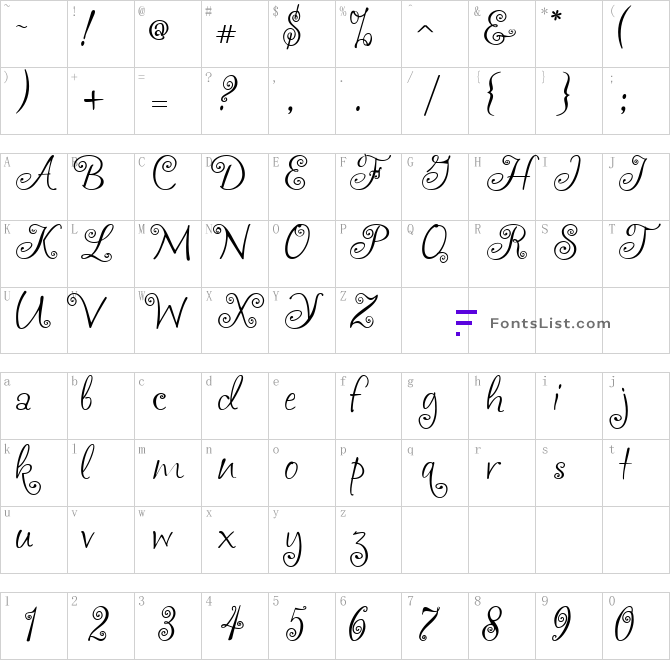
- Font Name:akaFrivolity
akaFrivolity.ttf is a very beautiful artistic font, akaFrivolity.ttf is widely used in the design and printing of various books and pictures,akaFrivolity.ttf has a strong visual impact,akaFrivolity.ttf is a commonly used font in newspapers, magazines and books, and is used in posters, e-commerce Poster design, store design, logo design, font design and other fields.akaFrivolity.